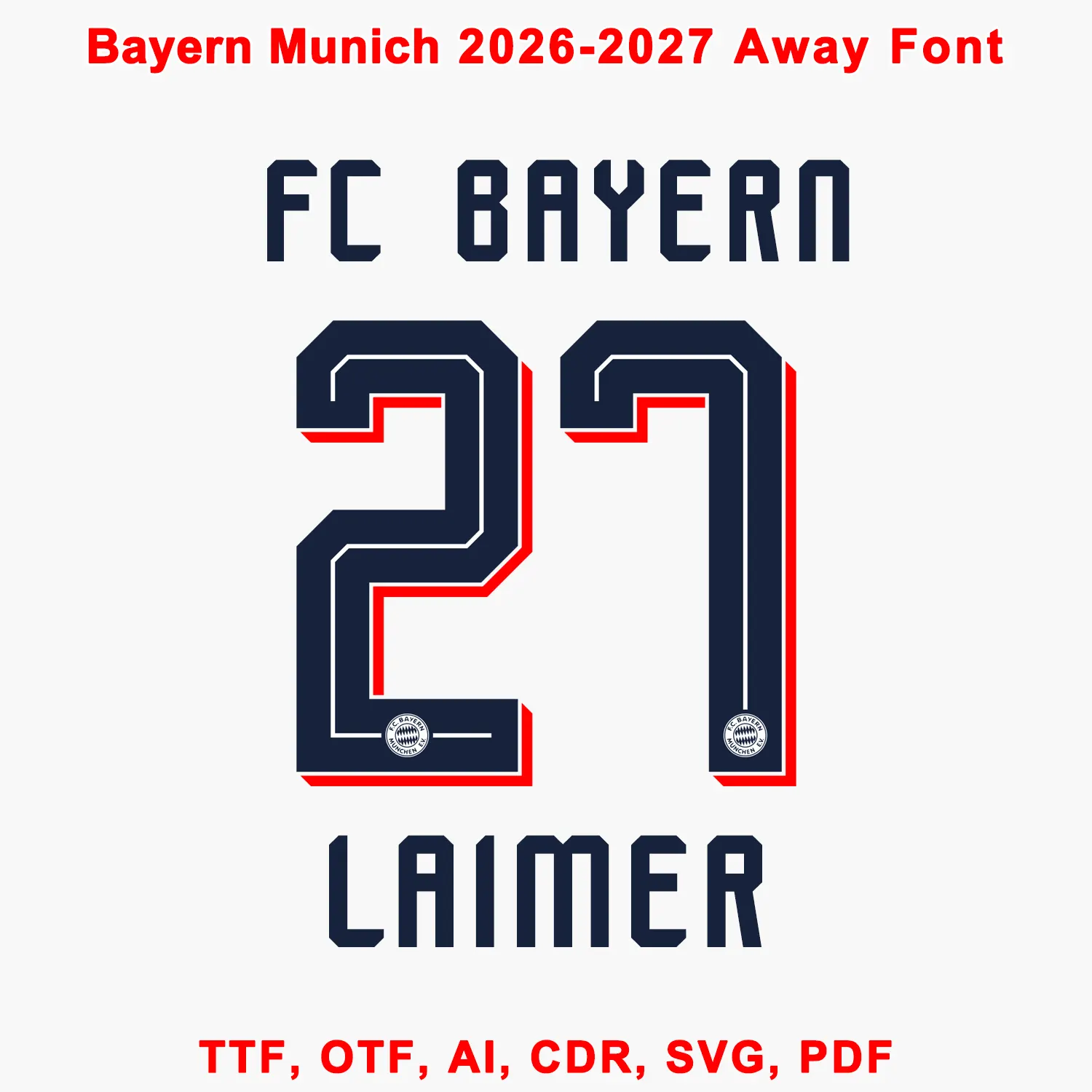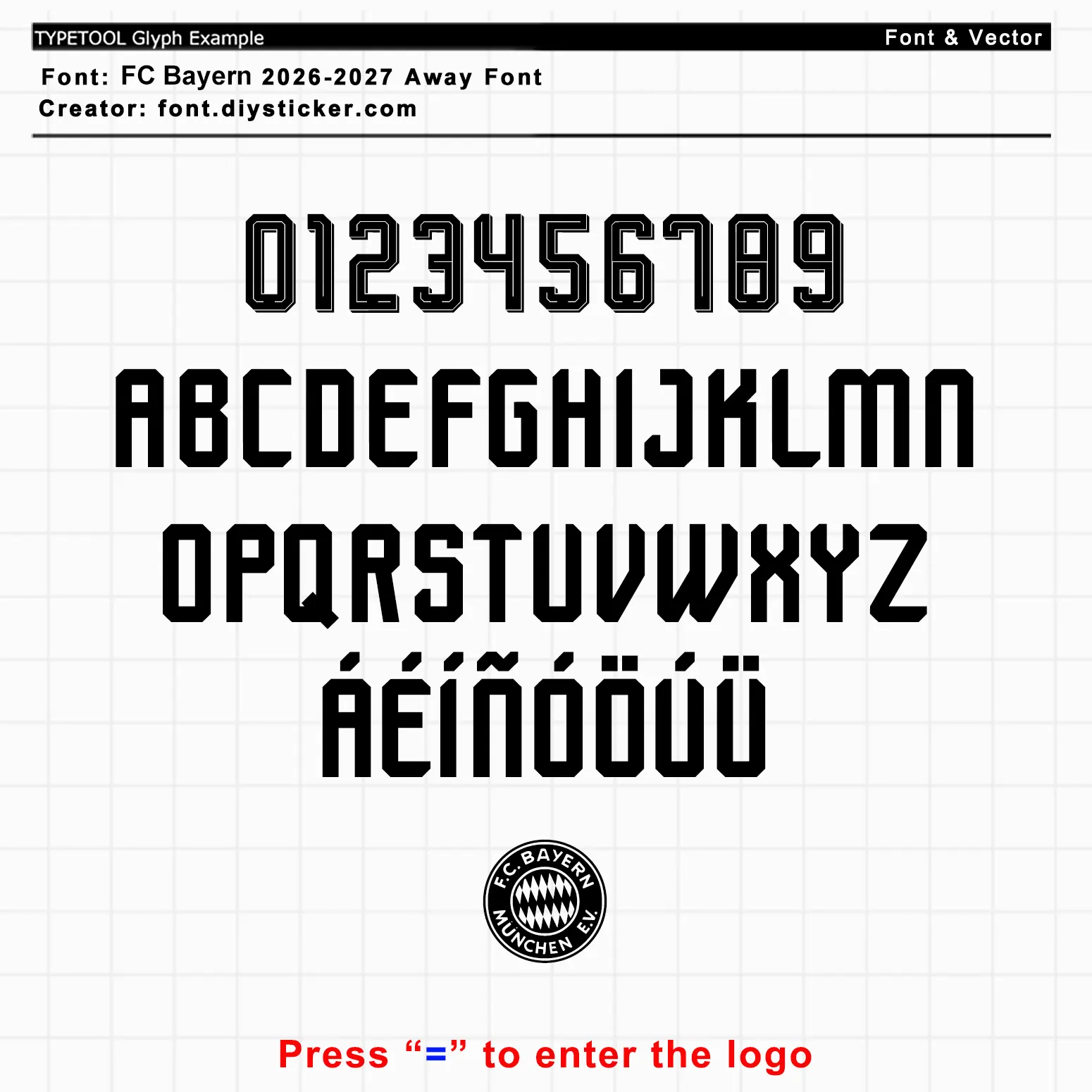
FC Bayern Munich 2026‑2027 Away Font Complete Digital Pack
Our FC Bayern Munich 2026‑2027 Away Font delivers accurate match‑quality lettering and number sets matching the official 2026‑2027 away kit typography. This digital bundle combines installable desktop fonts and fully‑editable vector resources for designers, print shops, jersey customizers and football content creators.
Key Features of FC Bayern Munich 2026‑2027 Away Font
The FC Bayern Munich 2026‑2027 Away Font includes complete uppercase alphabets, full numerals 0‑9, plus special accented characters such as Á, É, Í, Ñ, Ö, Ü needed for authentic player name‑and‑number sets. Every glyph reproduces the exact stroke weight, outline style and layered trim seen on real match away jerseys.